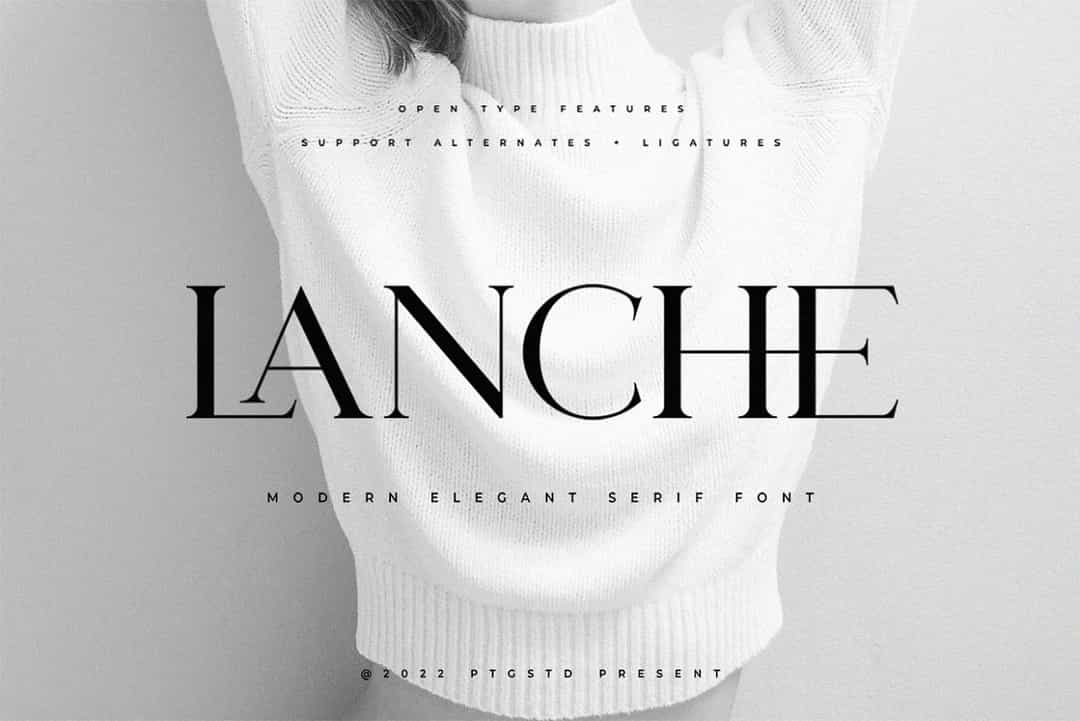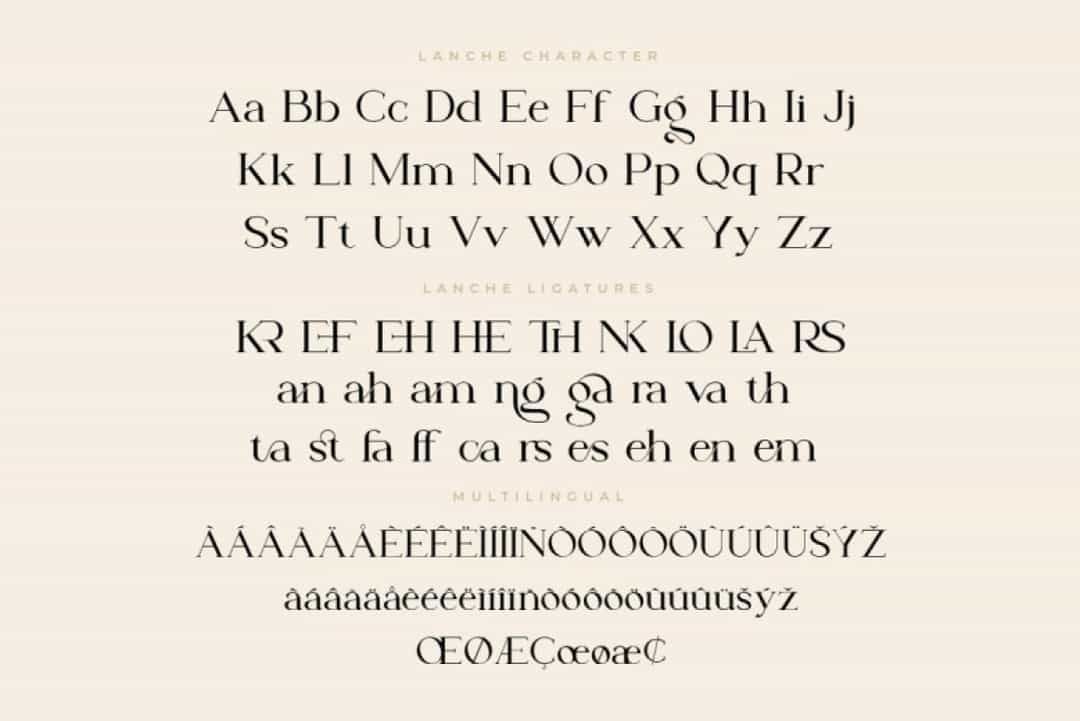
Lanche is a contemporary elegant, stylish, and chic font. Add this contemporary font into any design to instantly add luxurious style! PUA encoded, Lanche provides access to its impressive characters and ligatures quickly!